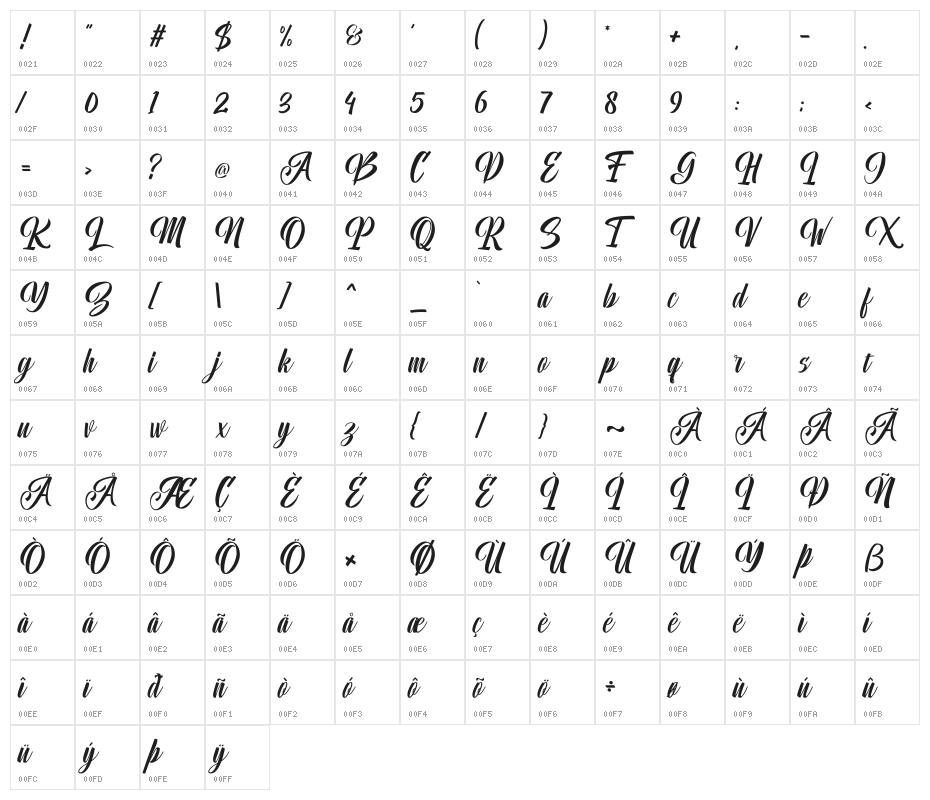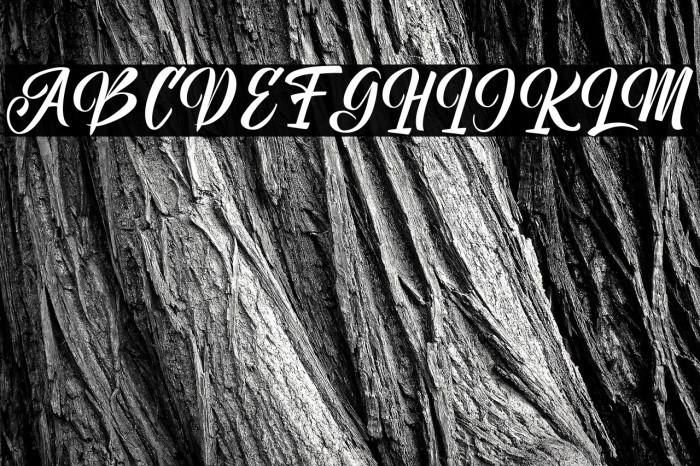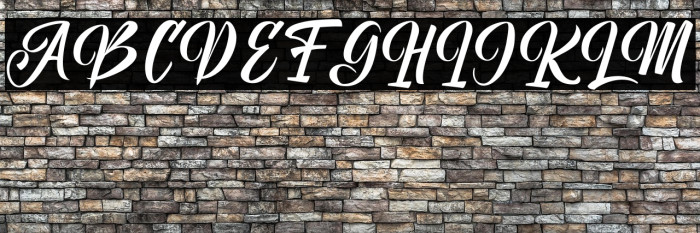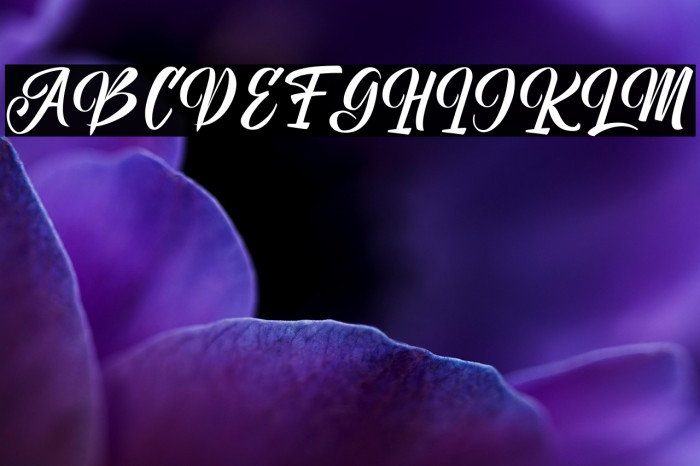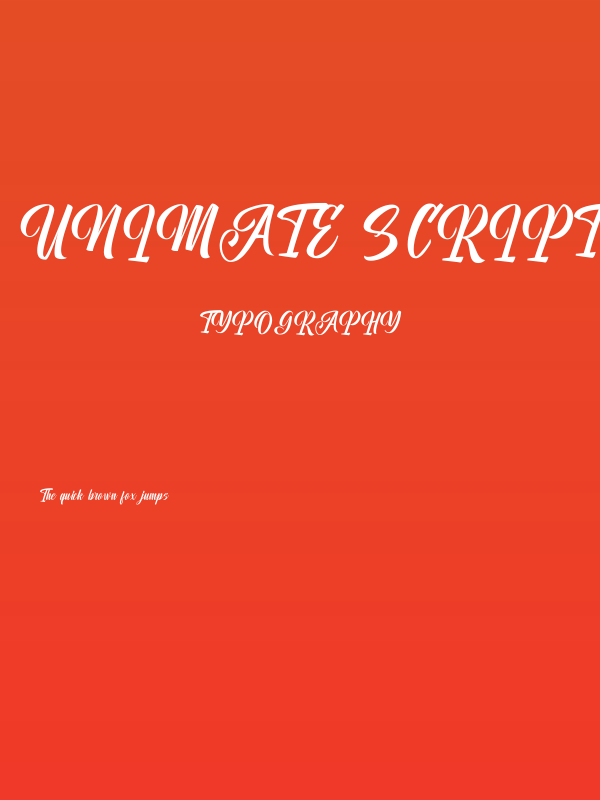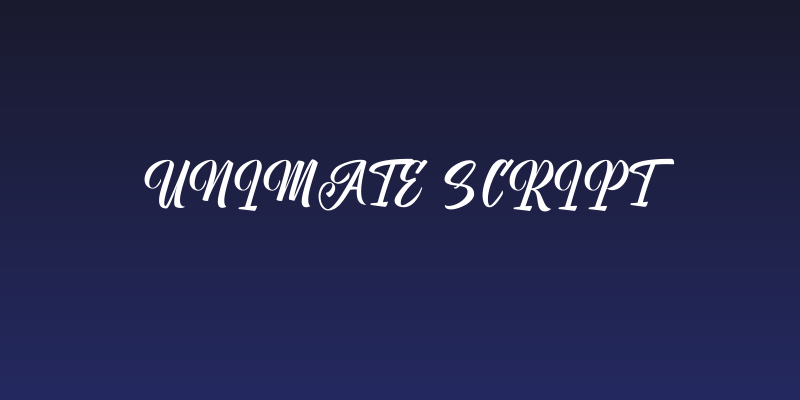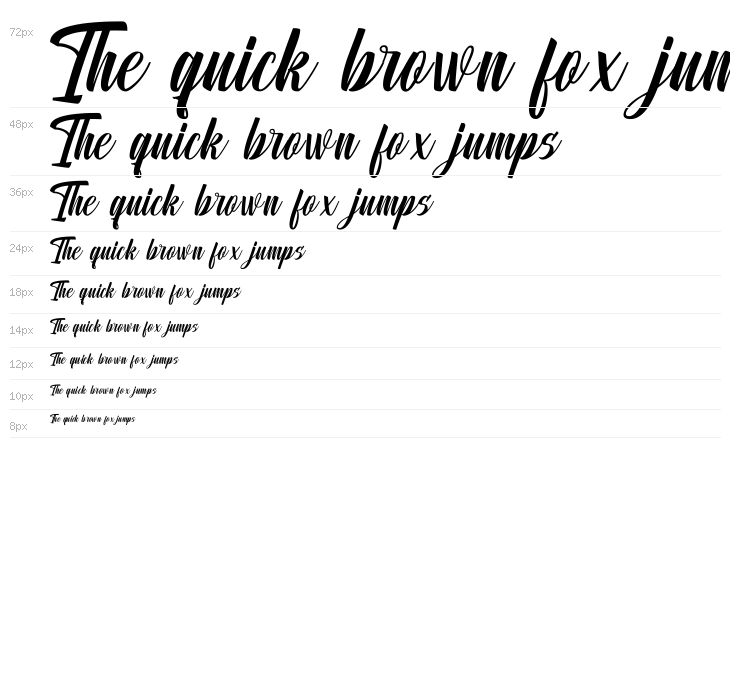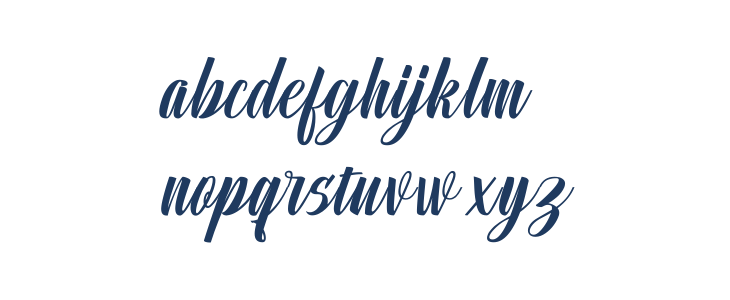
Unimate Script Font
Unimate Script Description
This font features a dynamic and flowing script style, characterized by its elegant, cursive letterforms. The uppercase letters are bold and sweeping, with dramatic flourishes that add a sense of movement and sophistication. The lowercase letters maintain a consistent slant, enhancing the fluidity and continuity of the text. Numbers and special characters are designed with the same attention to detail, ensuring a cohesive look across all elements. The overall appearance is both stylish and legible, making it suitable for a variety of design applications.
| Overall Style | Elegant |
| Use Case | Logos, Invitations, Branding |
| Proposed Projects | Ideal for wedding invitations, branding, logo design, and elegant stationery. |